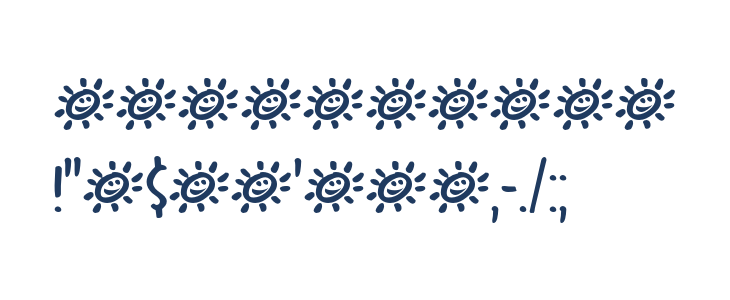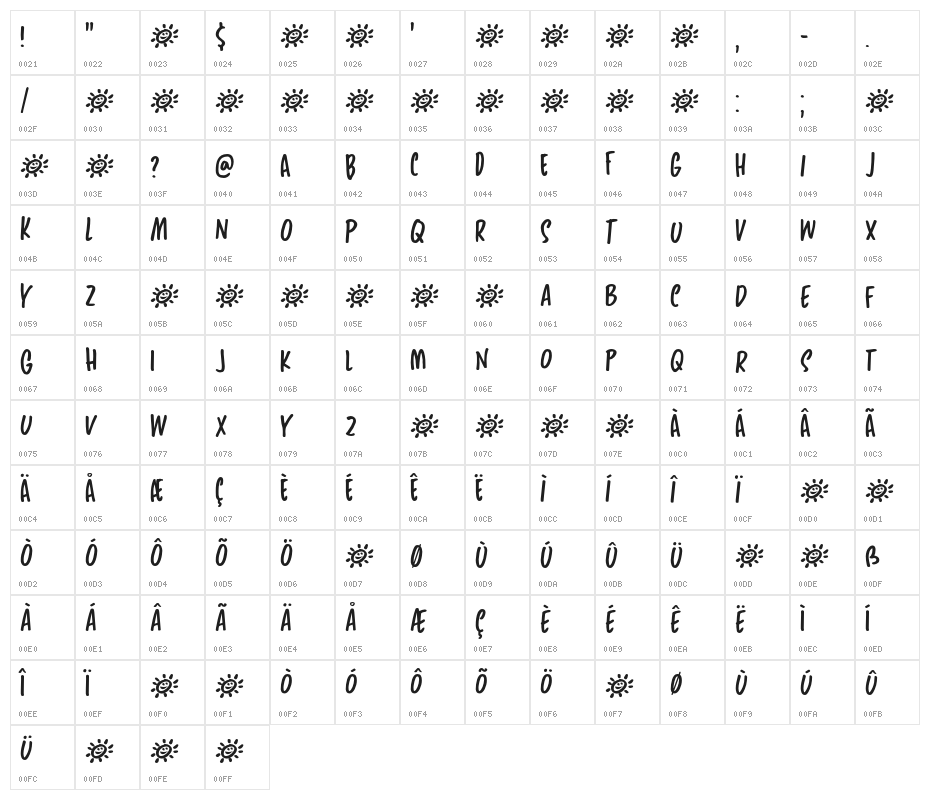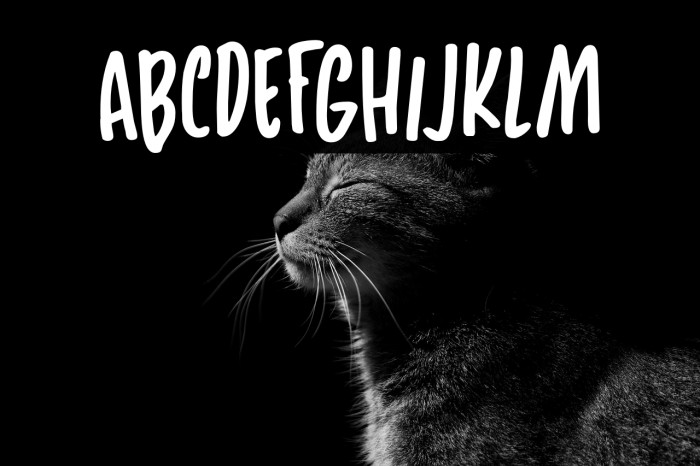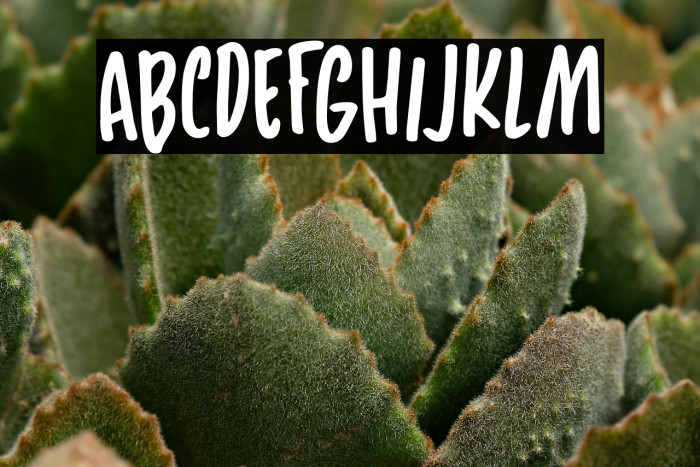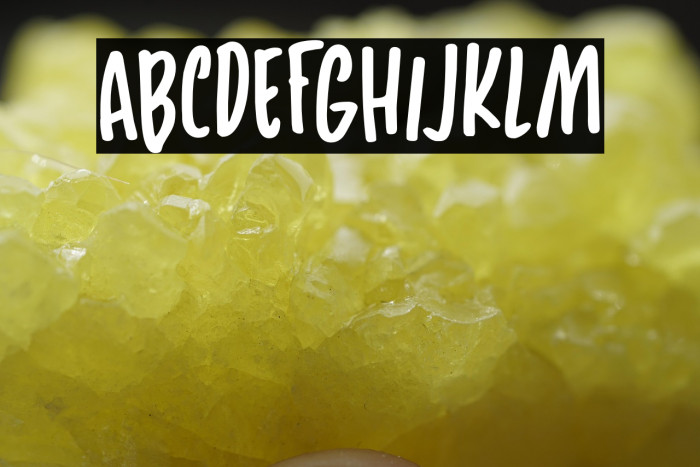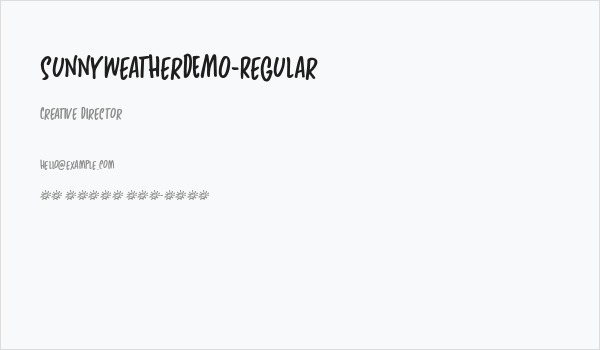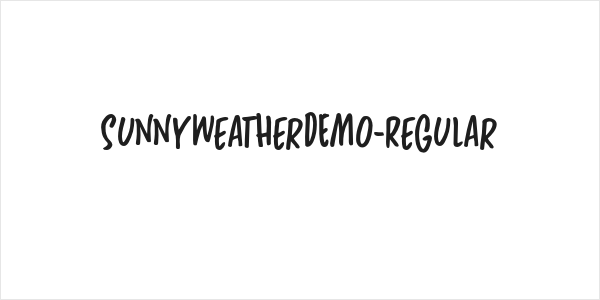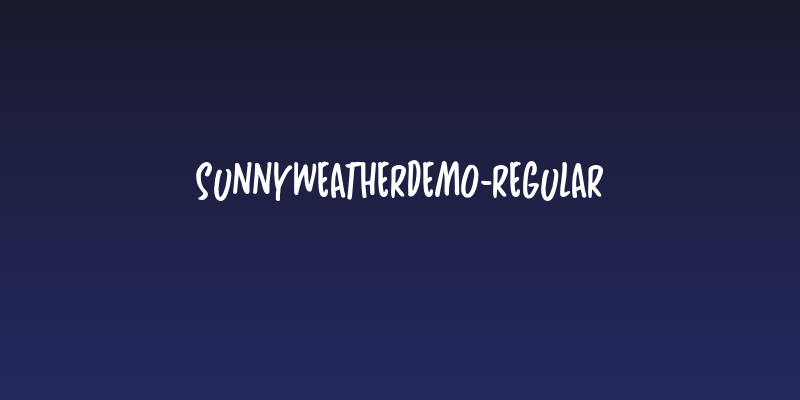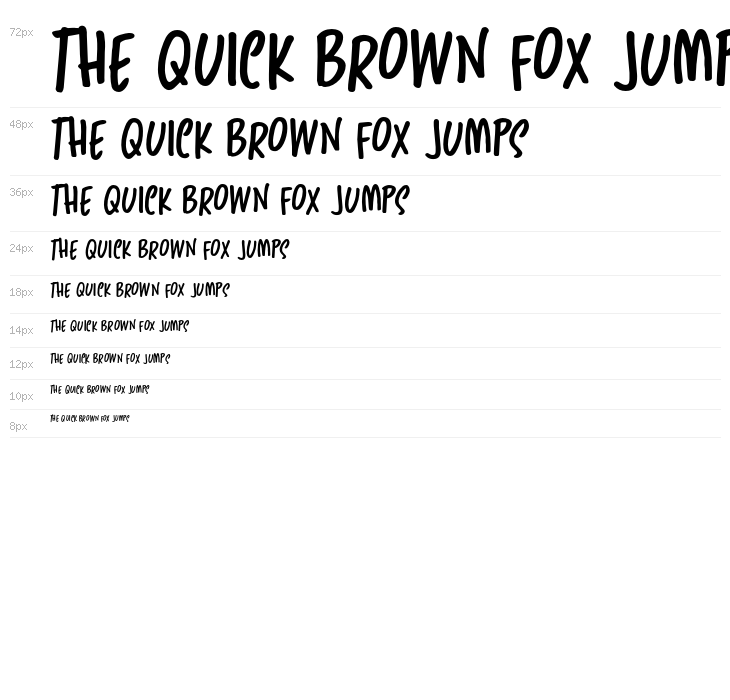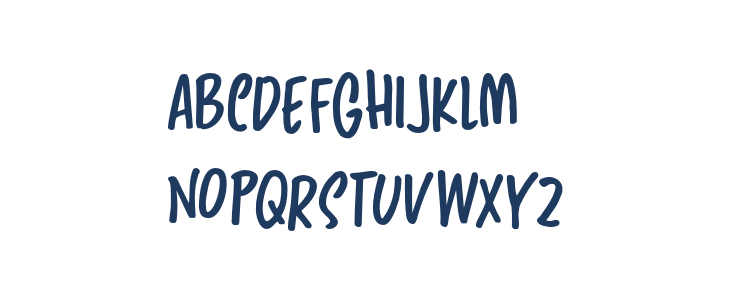
SunnyWeatherDEMO-Regular Font
SunnyWeatherDEMO-Regular Description
This playful and energetic font features bold, rounded characters with a hand-drawn aesthetic. The letters are slightly irregular, adding a whimsical touch that evokes a sense of fun and creativity. The uppercase and lowercase letters maintain a consistent style, with a smooth flow and a friendly appearance. The numbers and special characters are equally expressive, complementing the overall design. This font's unique style is perfect for projects that aim to convey a lively and informal tone.